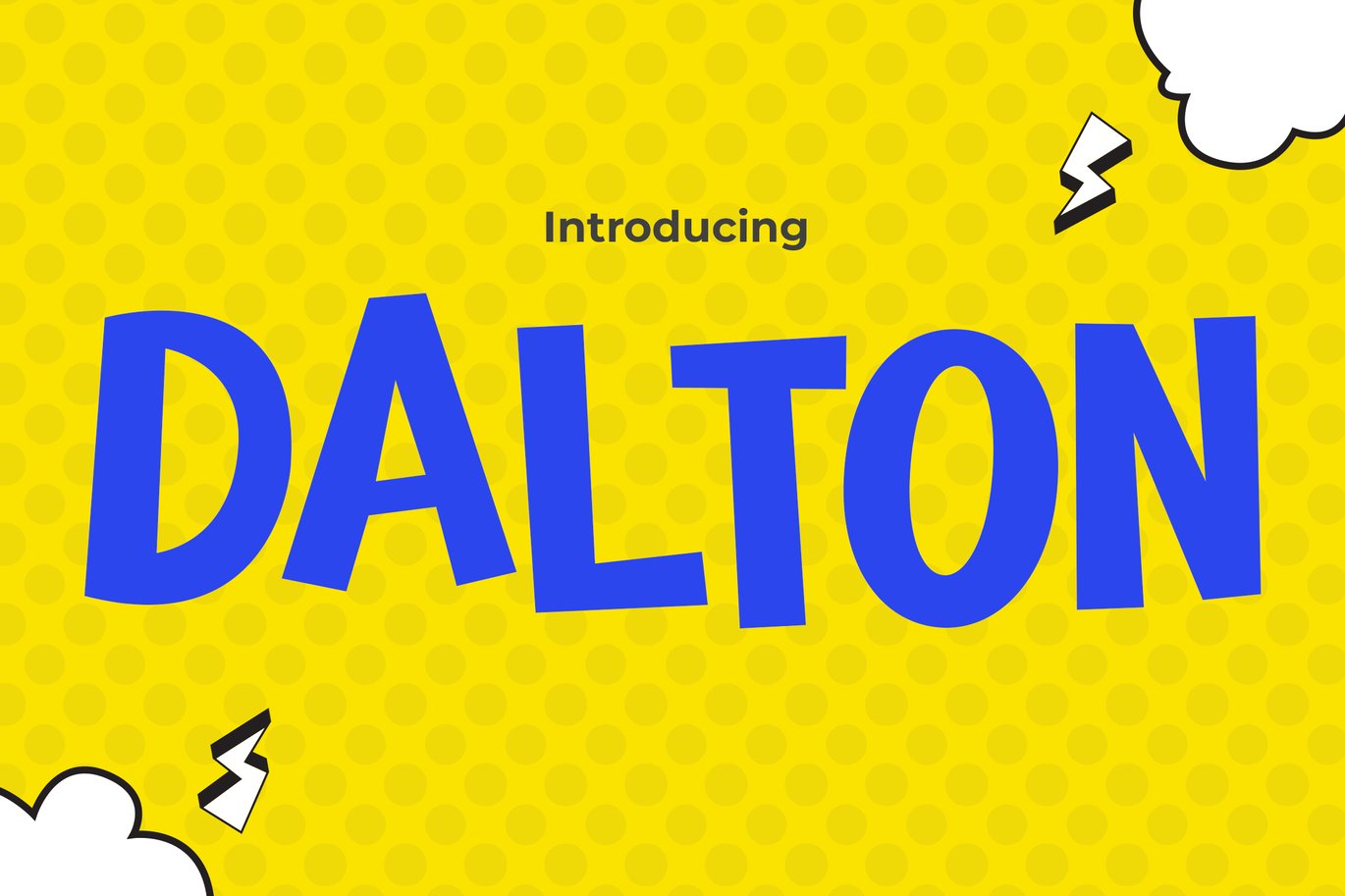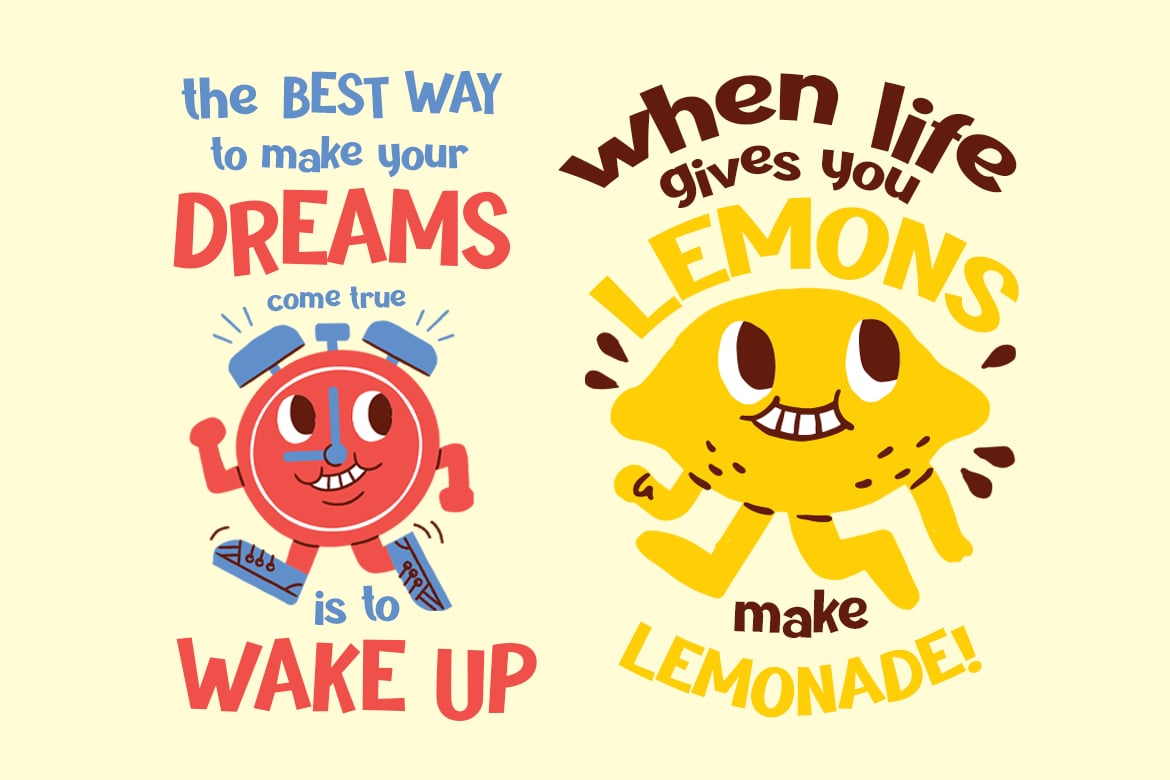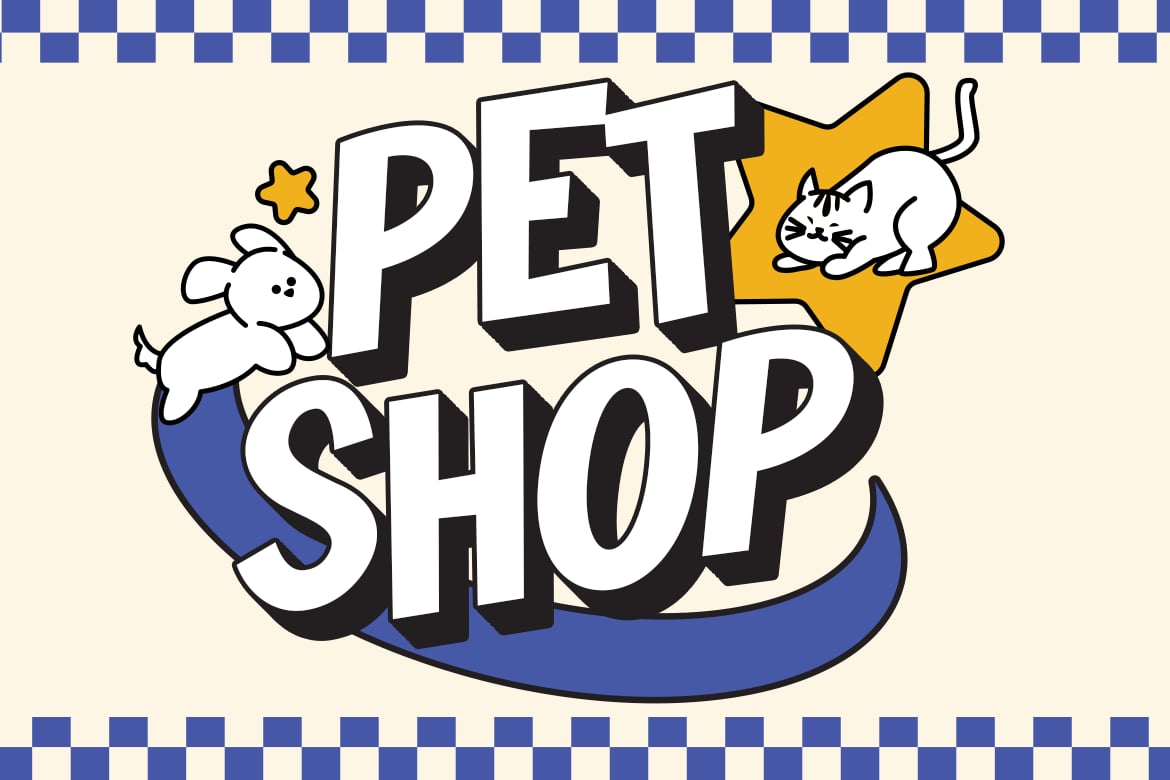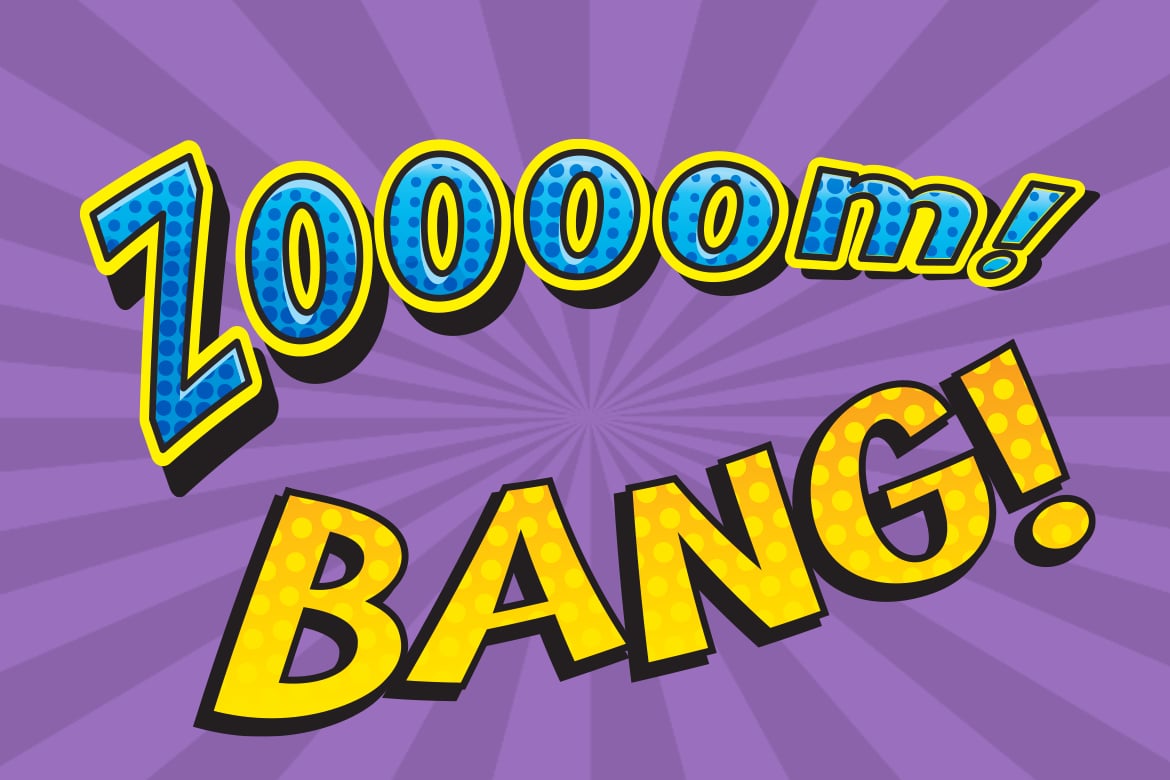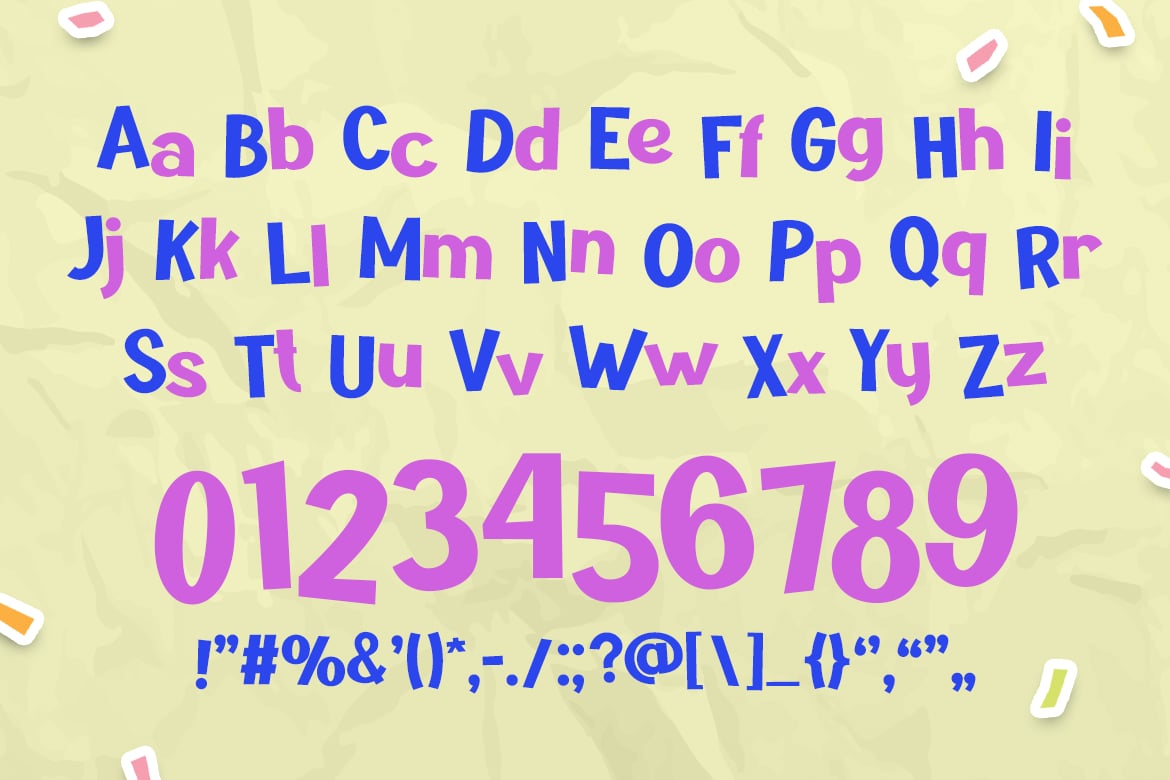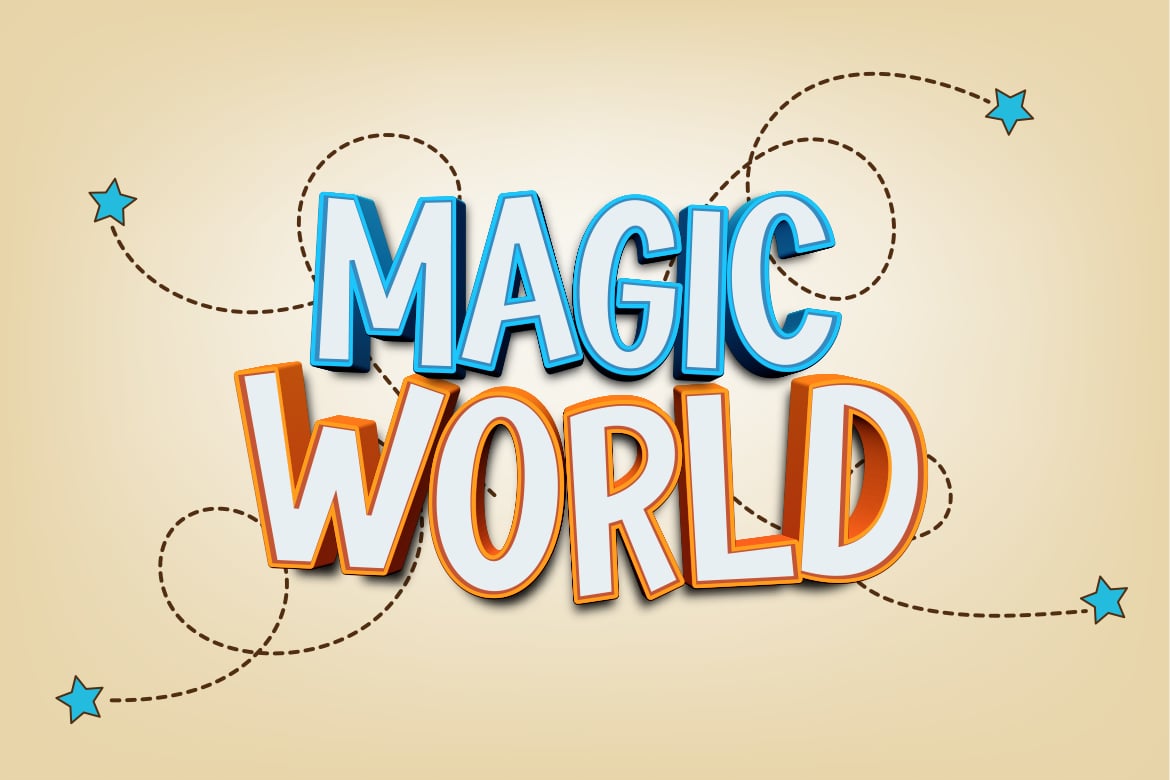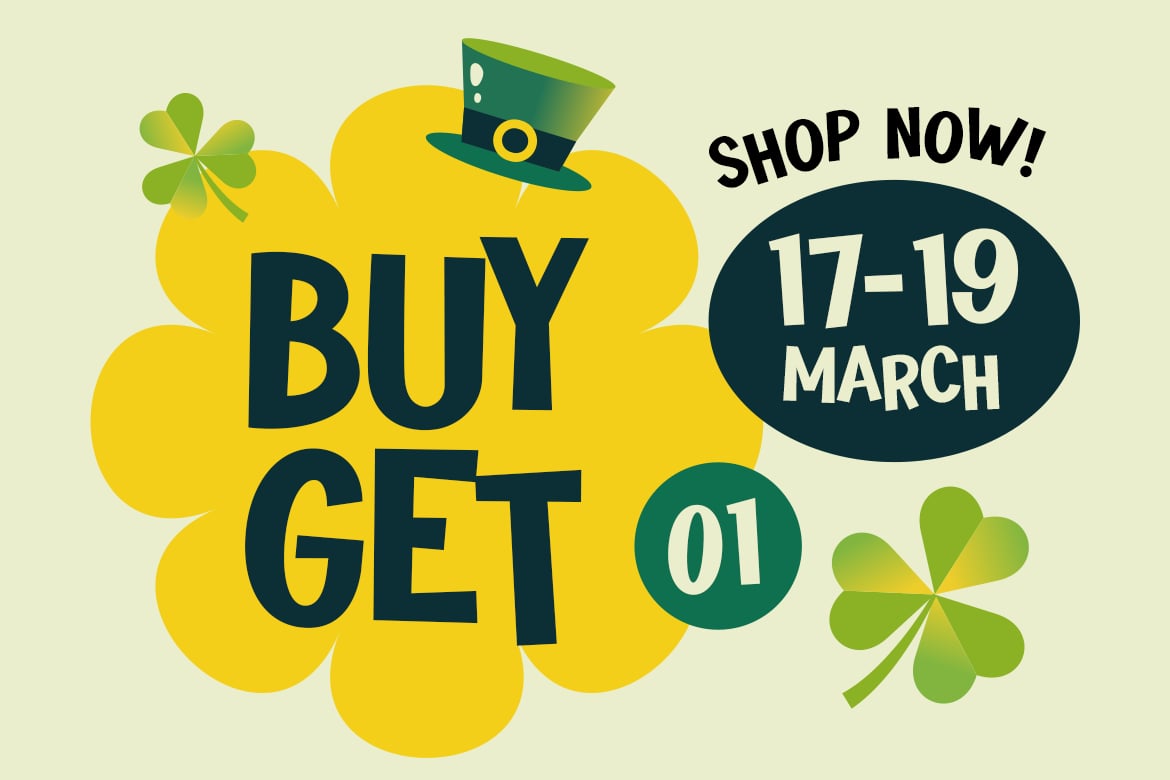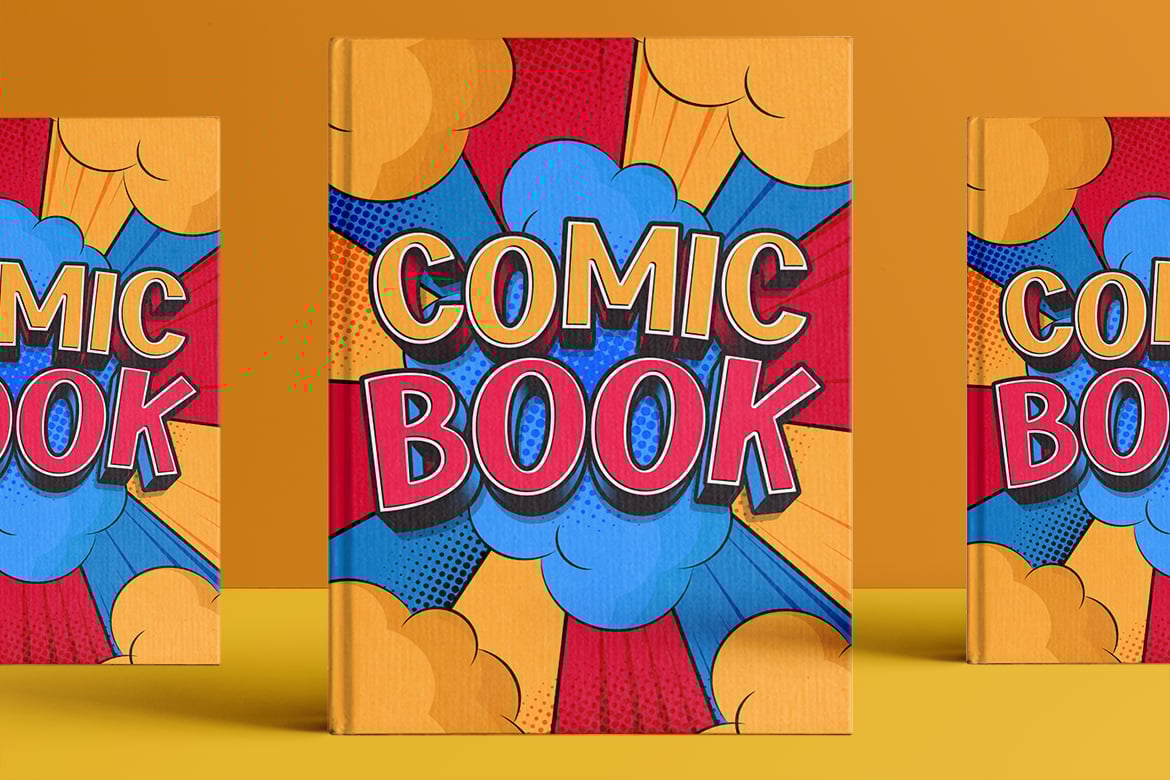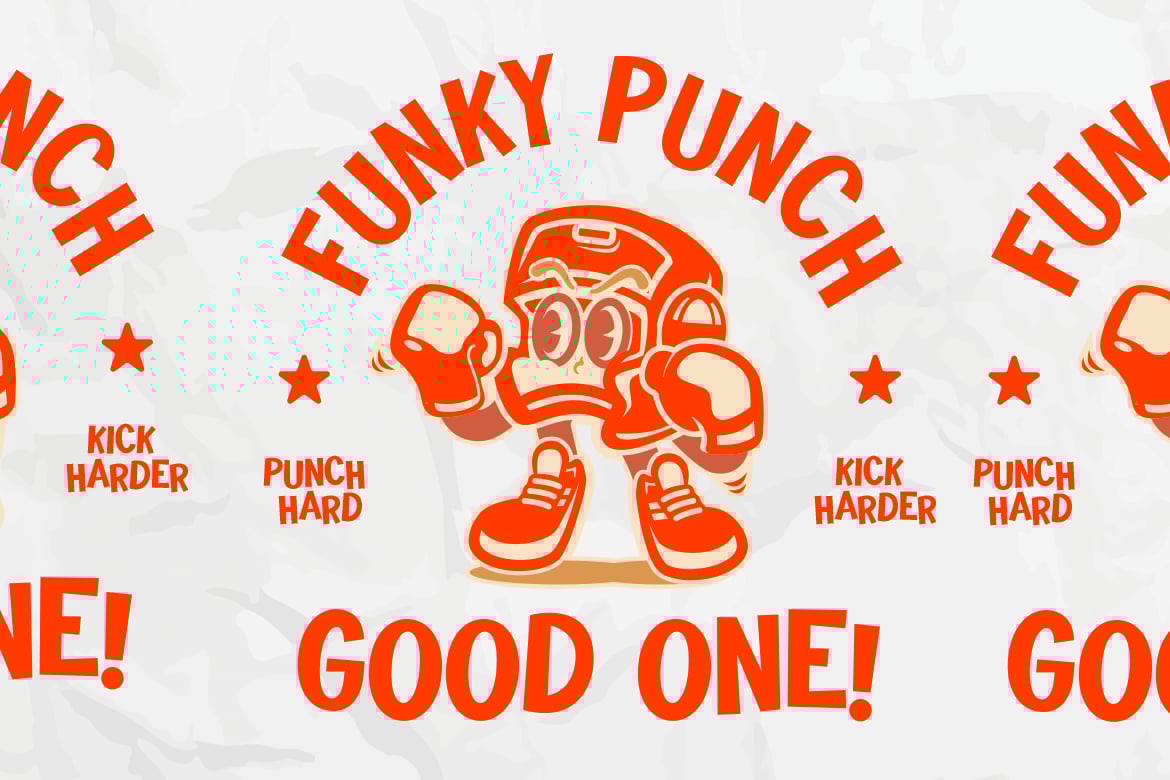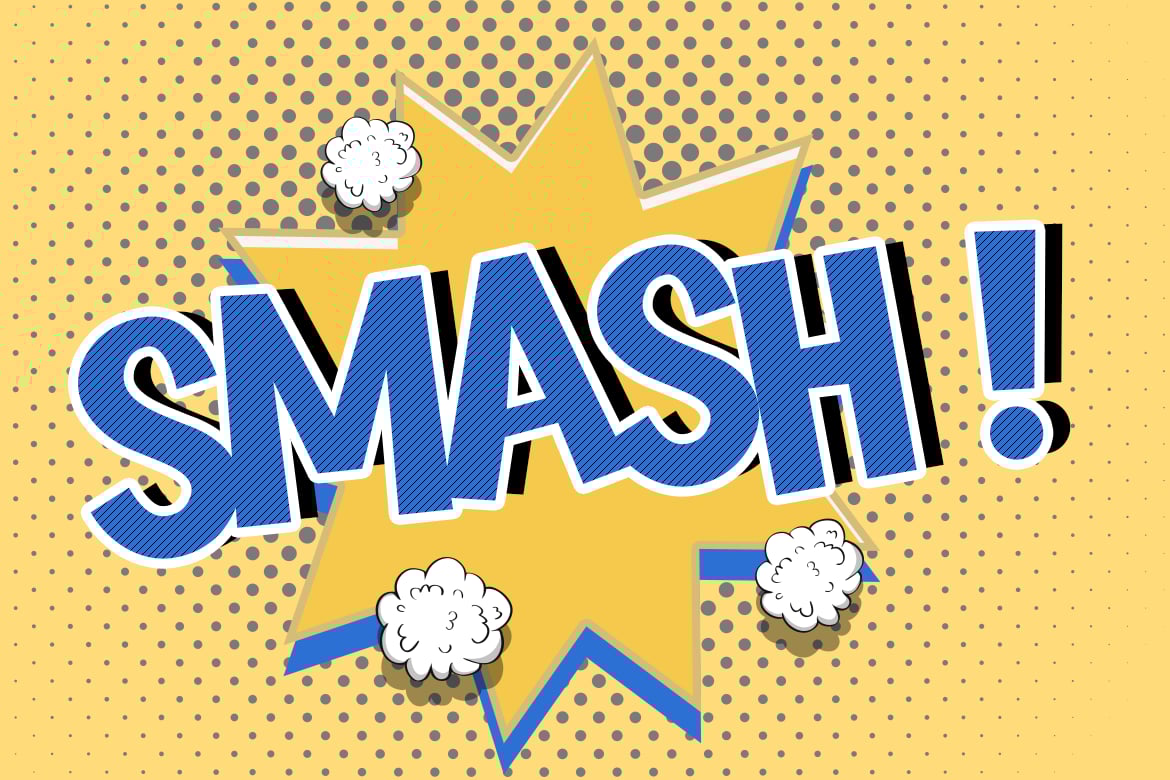
Cartoon Font – Dalton
Dalton is a lively cartoon font that embodies fun and whimsy, perfect for engaging children and sparking smiles. This playful font excels in designs aimed at kids and comic themes, making it an excellent choice for logos that must be approachable and memorable. Dalton’s cheerful nature enhances quotes with humor and light-heartedness, and its bold, fun style makes invitations and posters pop with energy. Whether used in greeting cards, packaging, or branding, Dalton injects a sense of joy and creativity into every project. It’s also ideal for book covers, event promotions, and advertising, ensuring messages are seen and enjoyed.